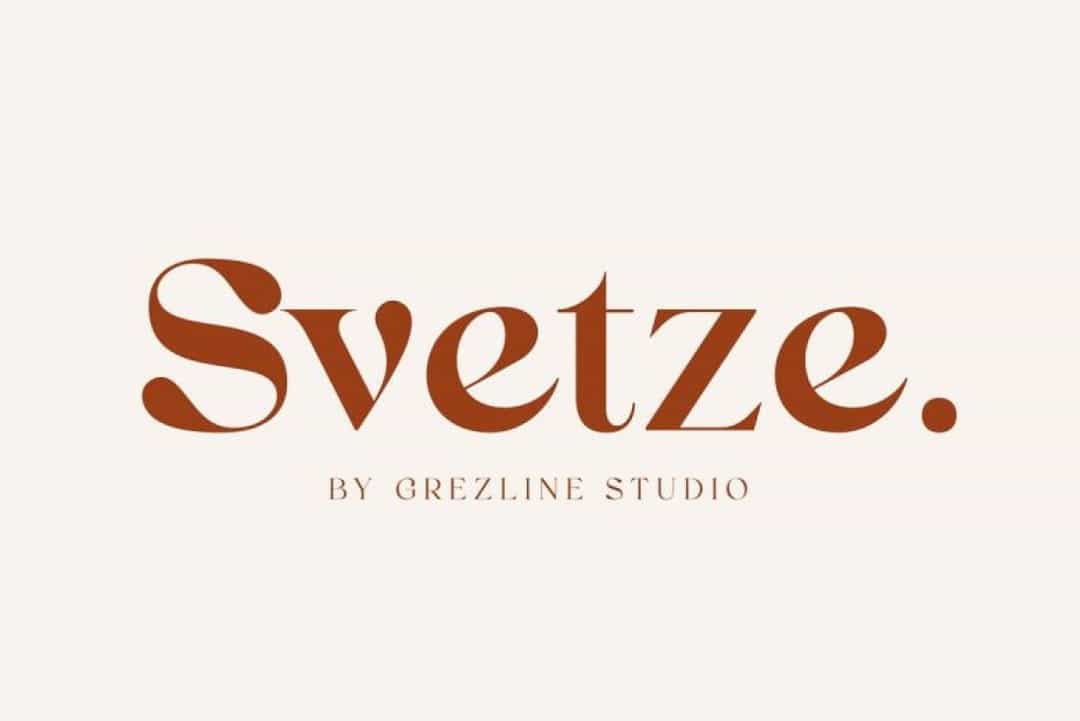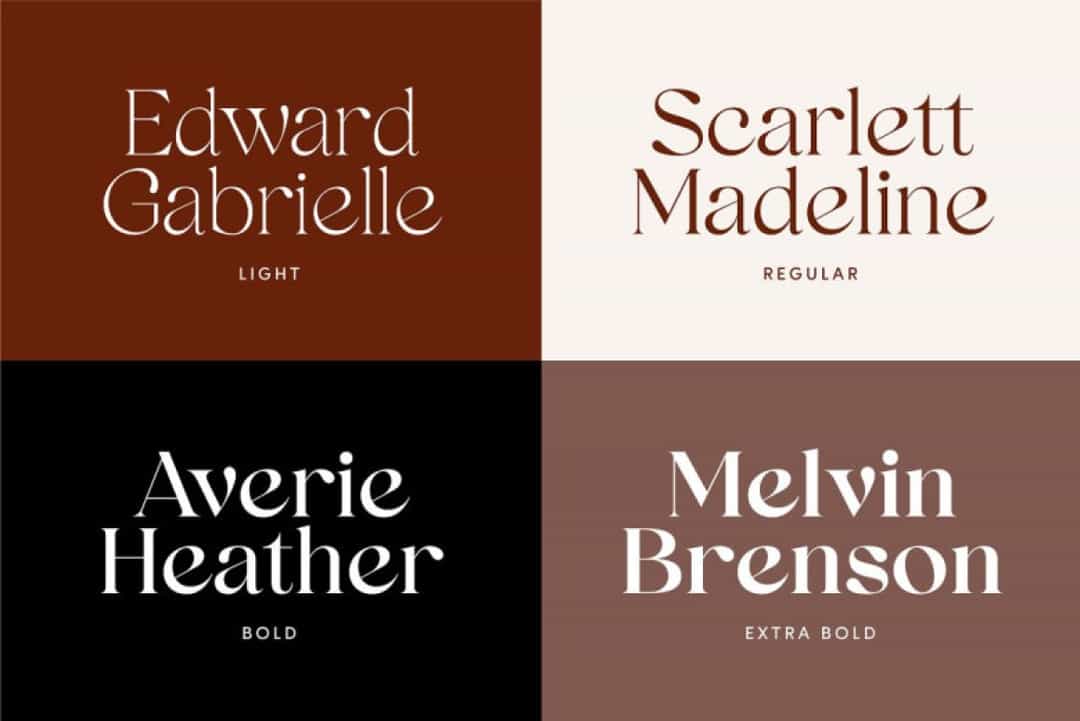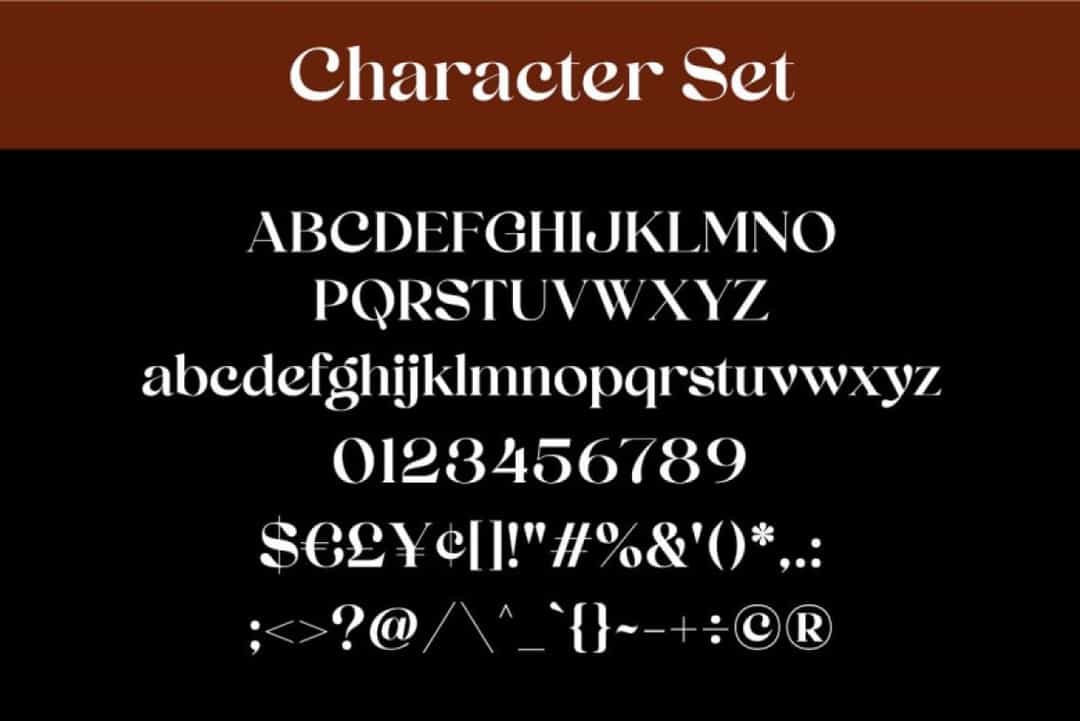
Svetze is an exquisite display serif font family composed of four weights. Although intended for fashion-related uses, you may use this font in other fields as well such as labelling, logos and magazines, greeting cards, books, packaging novels stationery labels etc.